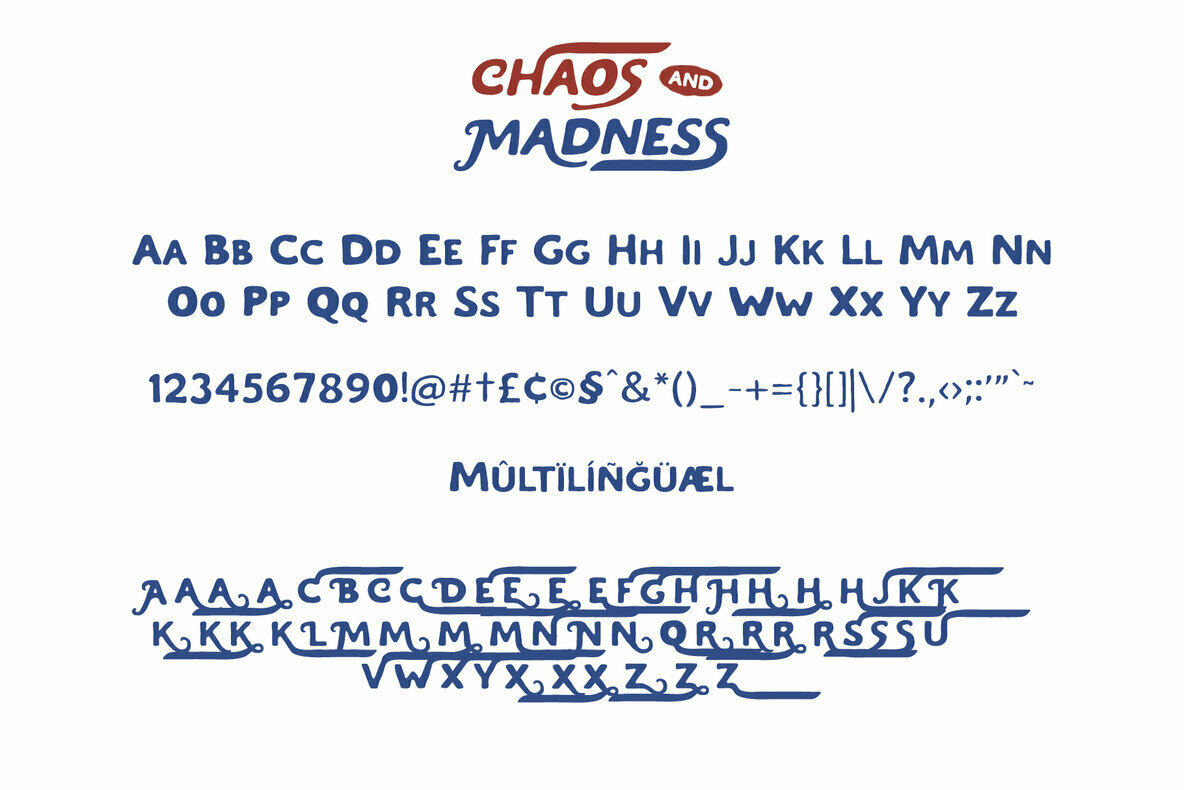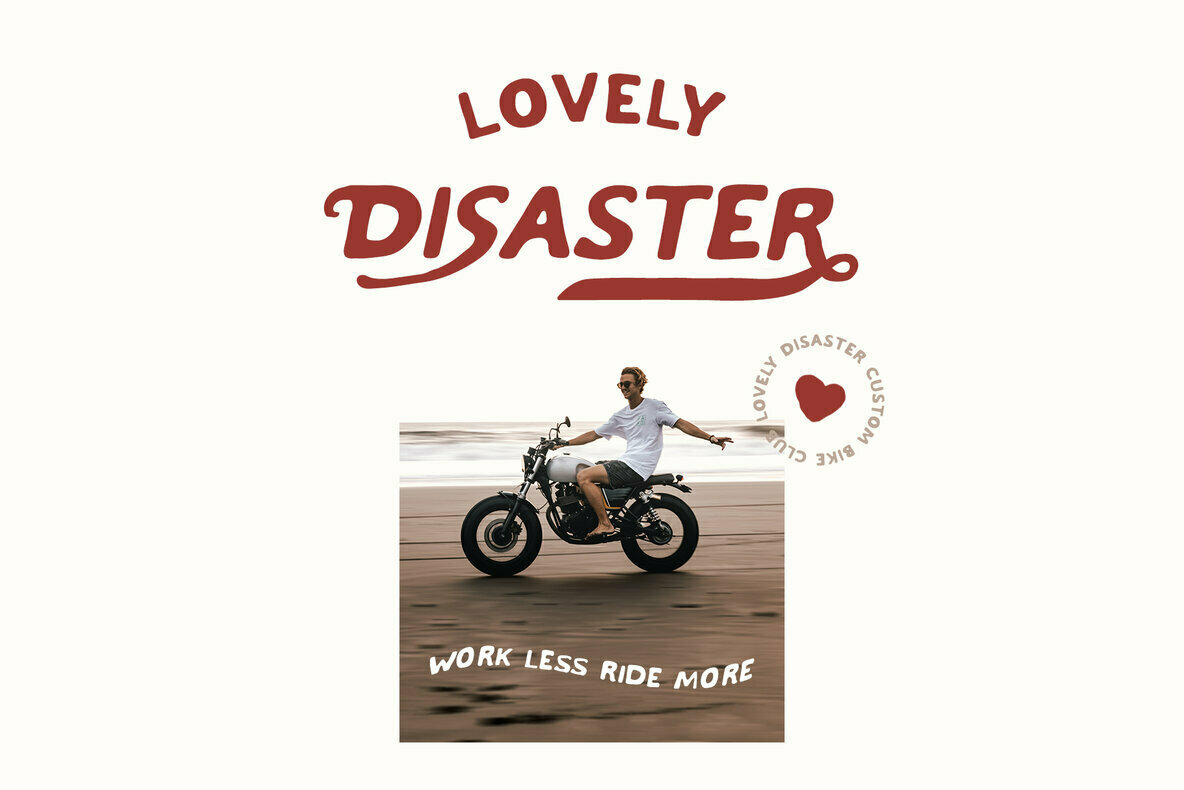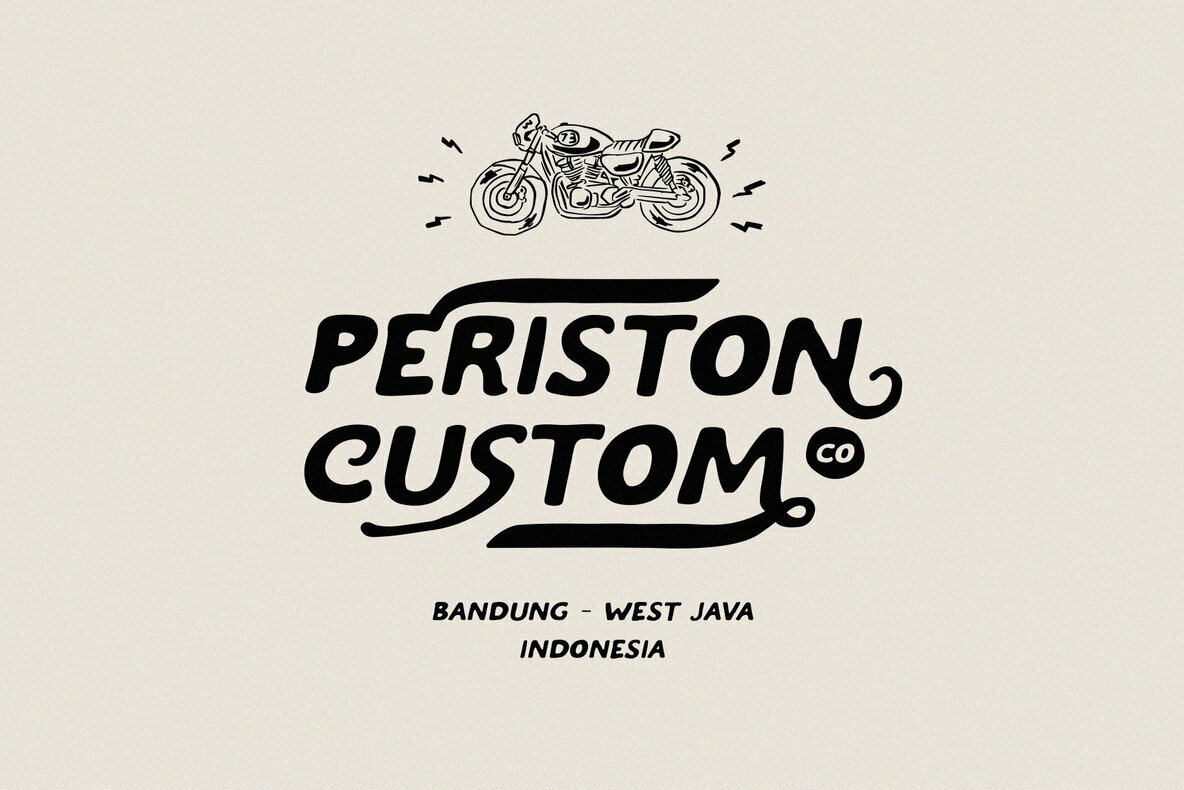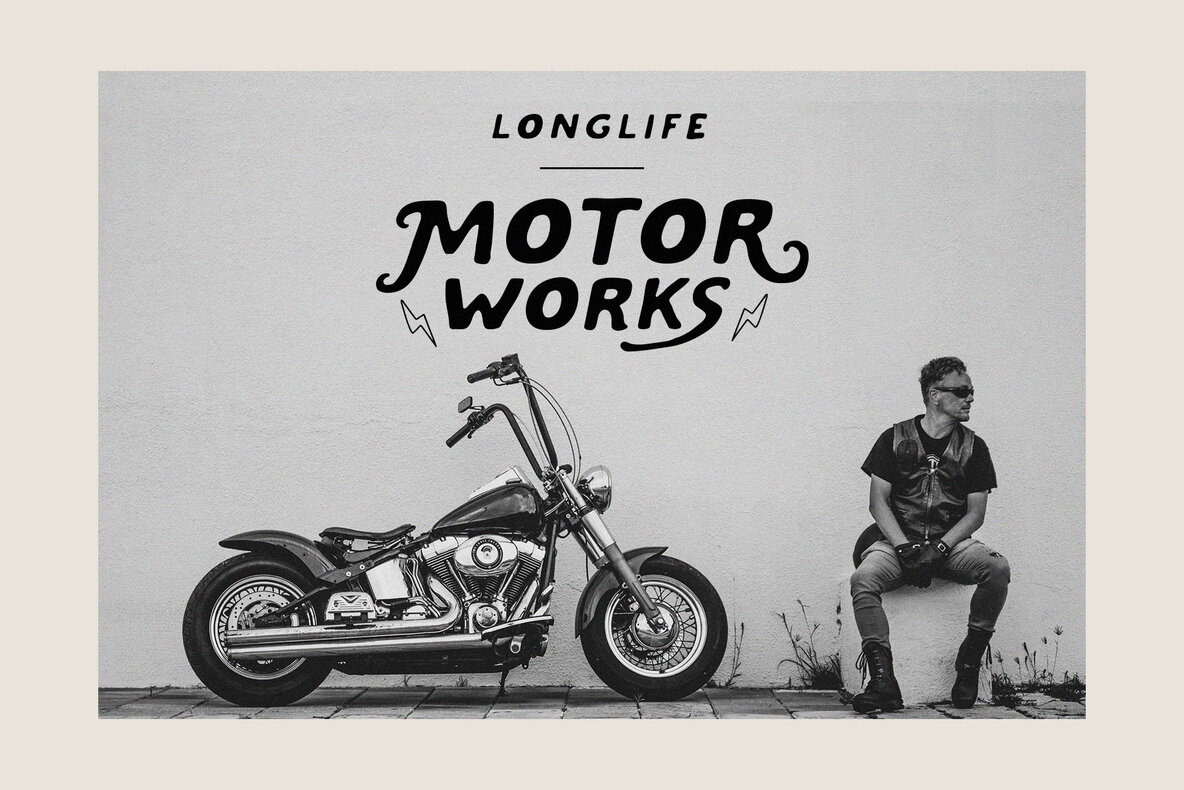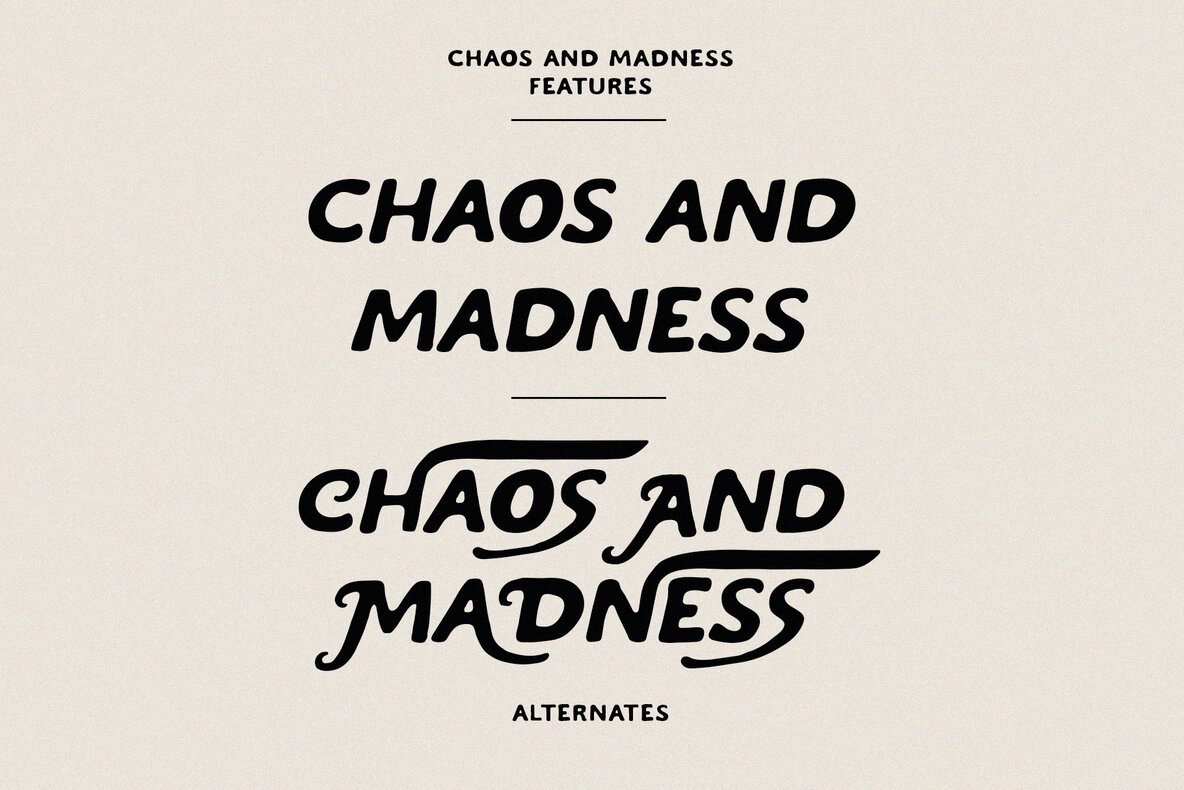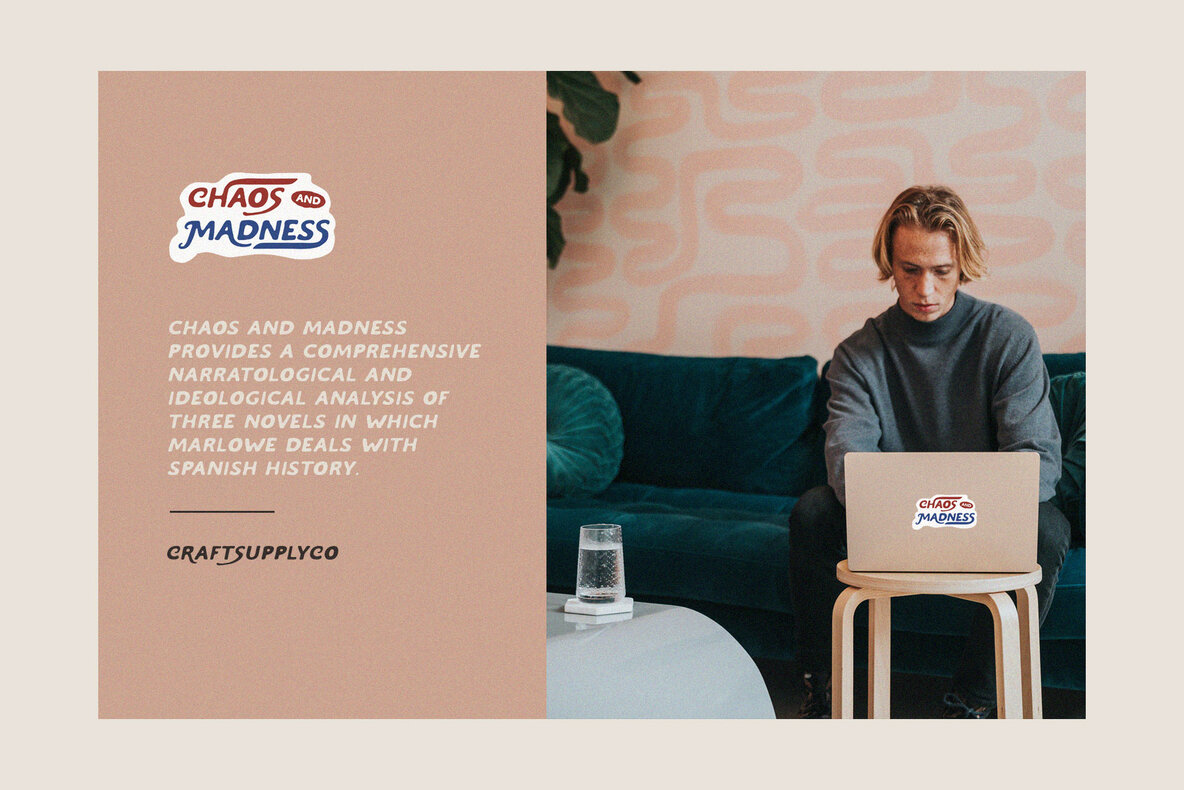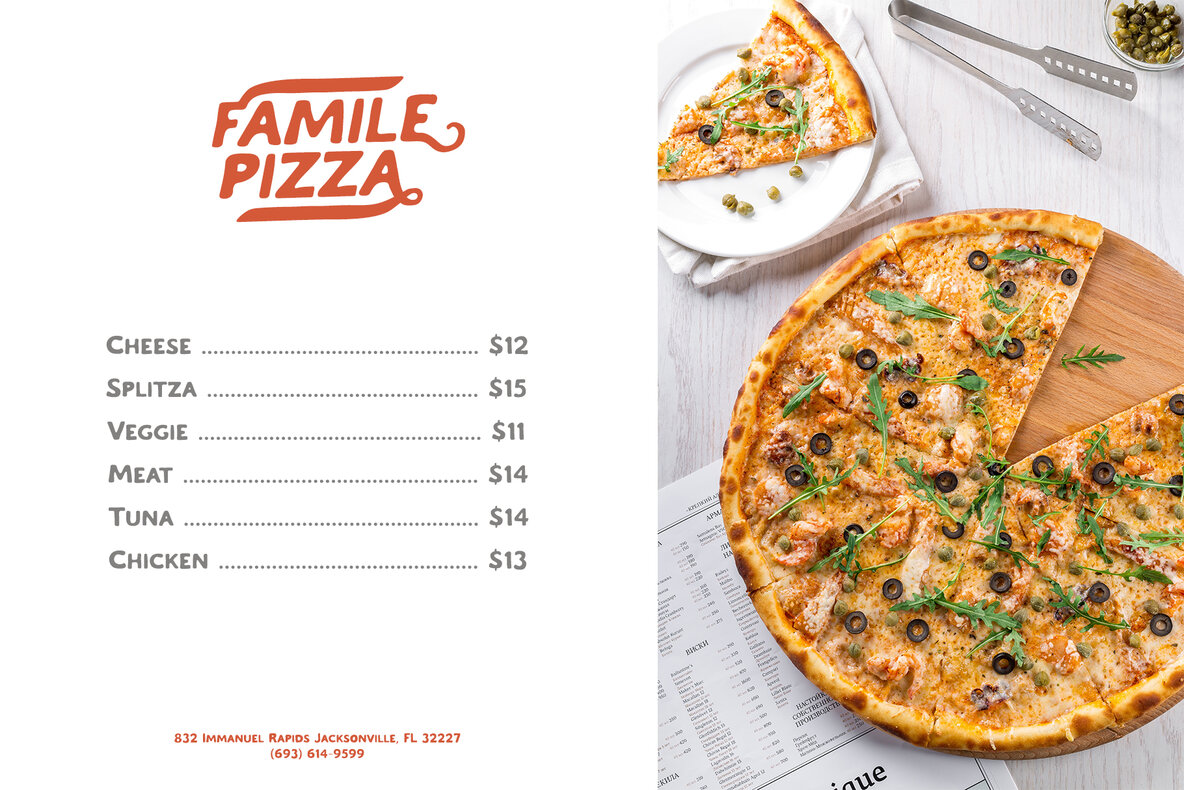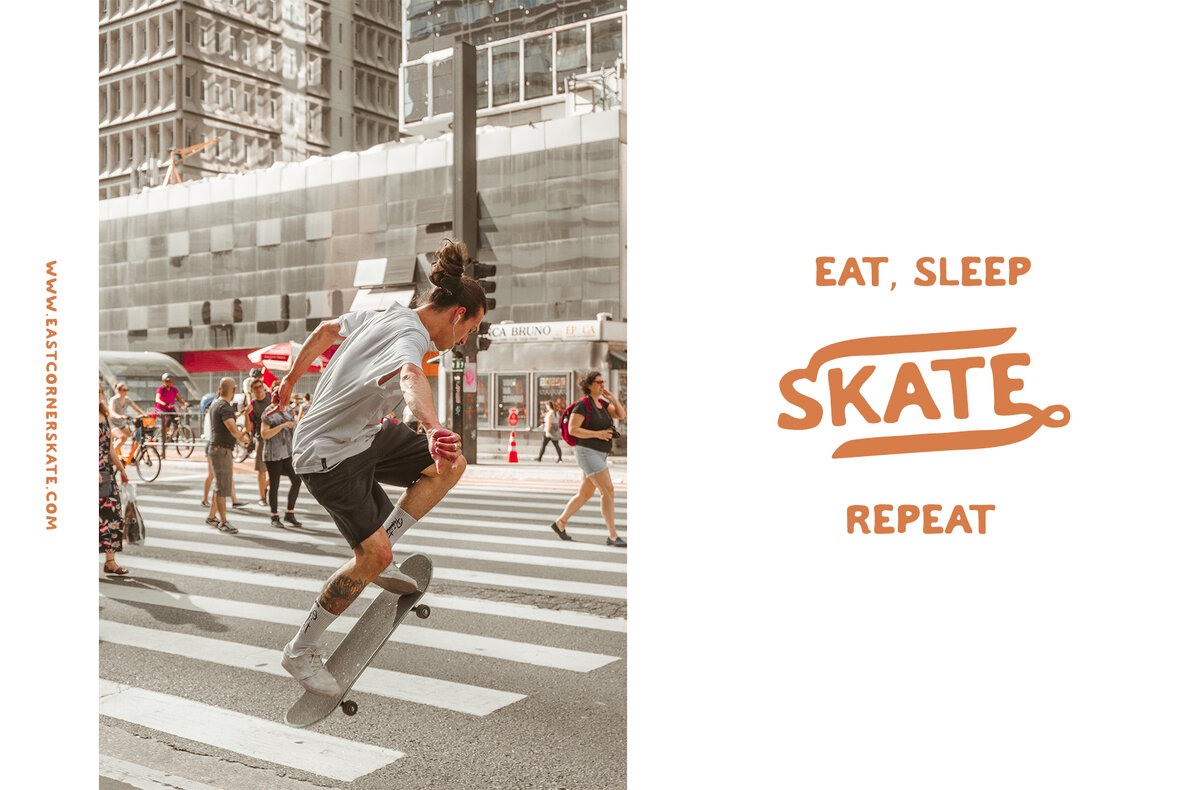
Chaos and Madness Font
Chaos and Madness - Handdrawn Font can be used to create almost all types of design projects like print materials. Just use your imagination and your project will become more alive and look great than ever with Chaos and Madness - Handdrawn Font
- Chaos and Madness Regular
- Chaos and Madness Italic
- All Caps Font
- Stylistic Alternates (A B C D E F G H J K L M N Q R U V W X Y Z)
- Numerals & Punctuations (OpenType Standard)
- Accents (Multilingual characters) (AÀÁÂÃÄÅCÇDÐEÈÉÊËIÌÍÎÏNÑOØÒÓÔÕÖUÙÜÚÛWYÝŸỲŸÆŒßÞ)